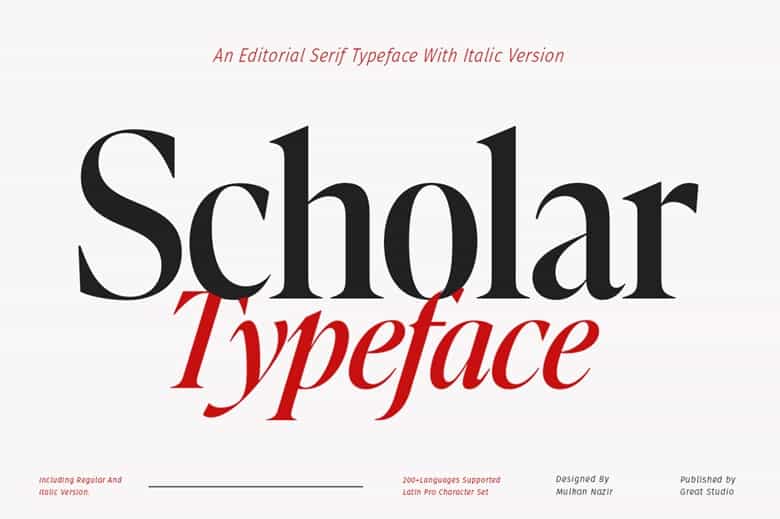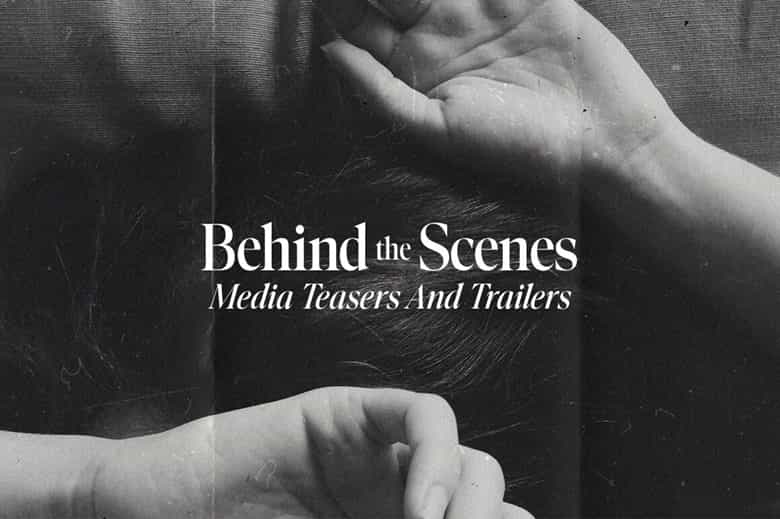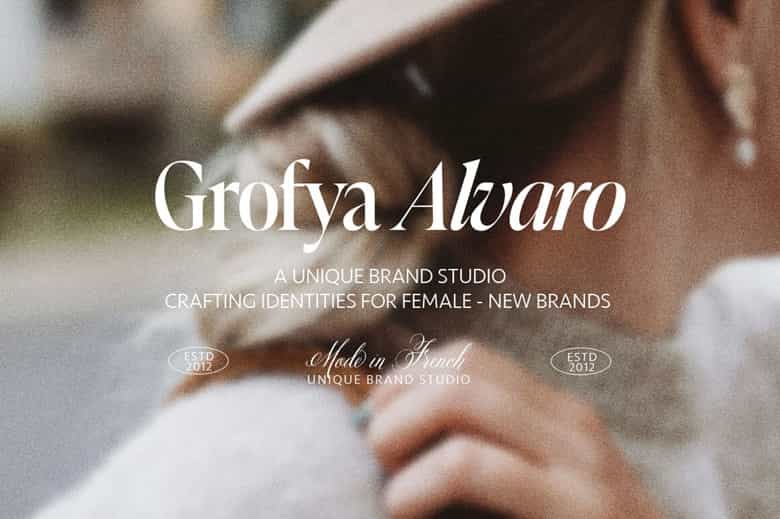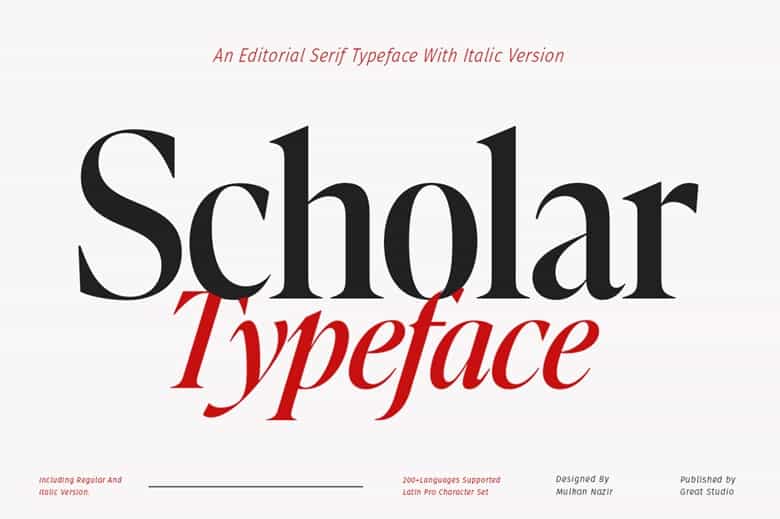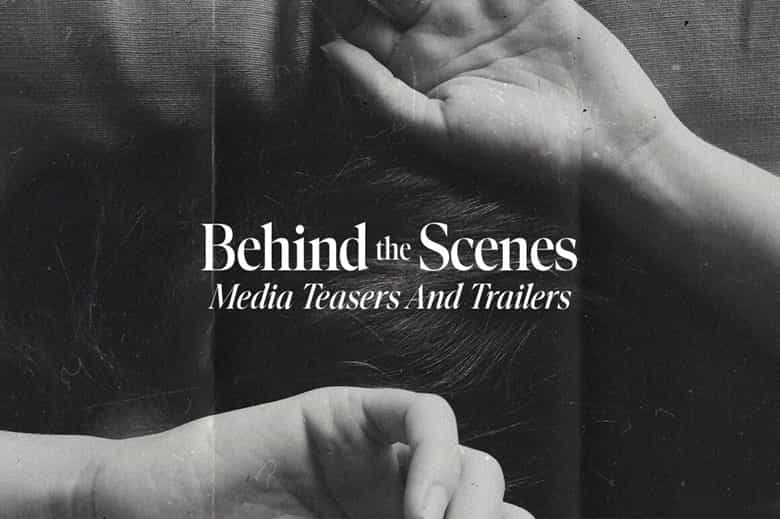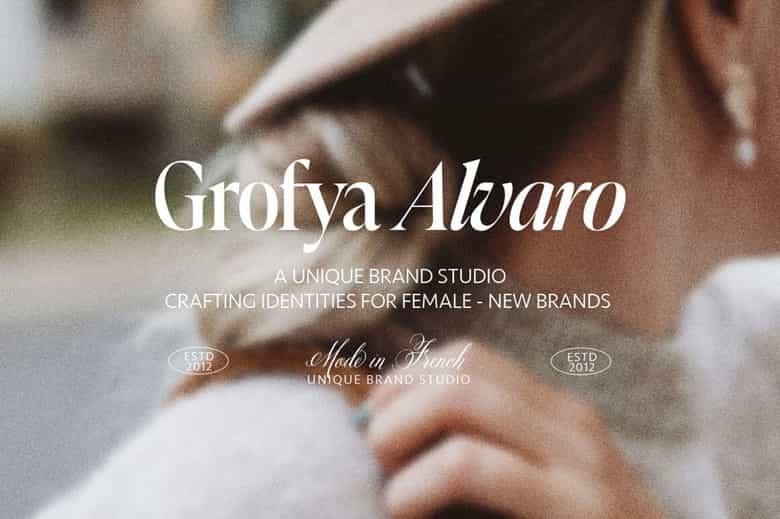
Scholar is a new conception of an editorial serif font with thin and melodious lines, close curves and thin light contrasting serifs. It is a typeface series that provides an organization with a professional and strong character. Scholar comes in two font versions: Regular and Italic.